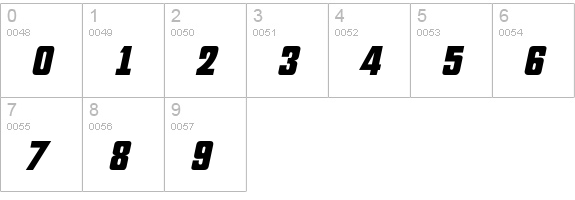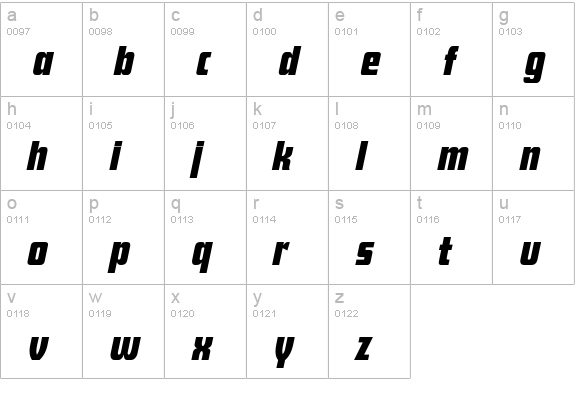
Shylock Bold Italic Font Details
Shylock Bold Italic is a strong, high-contrast, italic variant in the Shylock typeface family \xE2\x80\x94 well suited to headlines, attention-grabbing titles, and strong calls-to-action.
Shylock Bold Italic is a captivating and versatile font that effortlessly marries boldness and elegance. With its distinctive slanted italics and confident strokes, this font exudes a sense of sophistication and modernity. Perfect for adding a touch of flair to your projects, Shylock Bold Italic is ideal for use in various design contexts. Whether you are creating eye-catching logos, designing captivating headlines, or enhancing the visual impact of your marketing materials, this font is sure to make a lasting impression. What sets Shylock Bold Italic apart is not only its impeccable design but also its accessibility. It is freely available to download at FontsMarket.com, allowing designers, artists, and enthusiasts to effortlessly incorporate this stunning font into their creative endeavors. Crafted with meticulous attention to detail, Shylock Bold Italic offers a wide range of characters, including uppercase and lowercase letters, numerals, punctuation marks, and special symbols. This expansive character set ensures that you have everything you need to bring your ideas to life with precision and style. Whether you are a seasoned professional or just starting your design journey, Shylock Bold Italic provides you with the tools to create visually striking and professional-looking projects. Its seamless combination of boldness and elegance makes it the perfect choice for adding a touch of sophistication to any design. Download Shylock Bold Italic for free at FontsMarket.com and let this captivating font elevate your creativity to new heights.